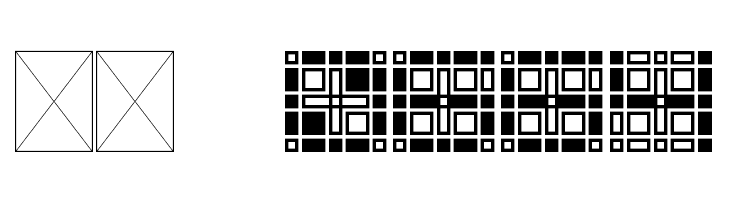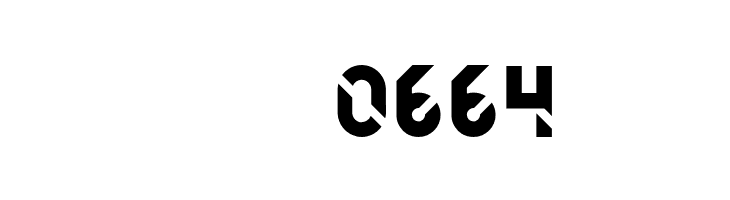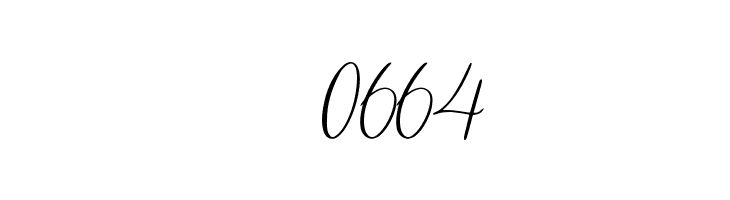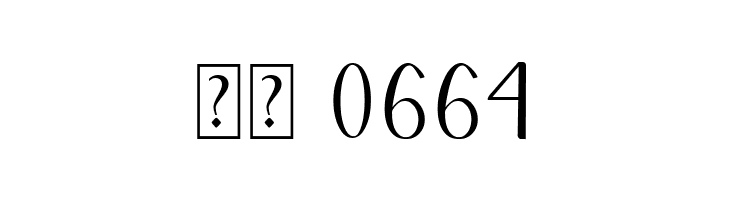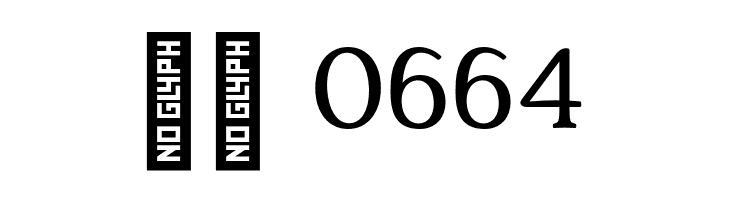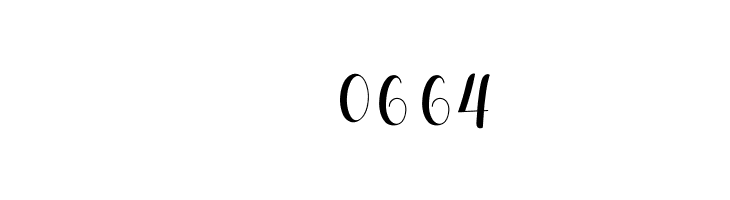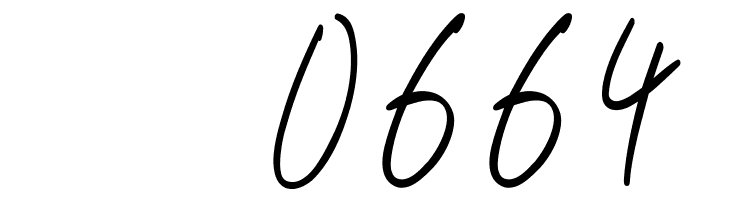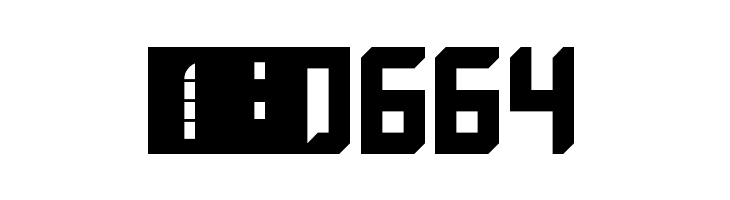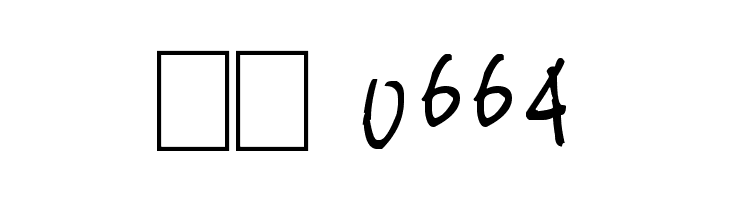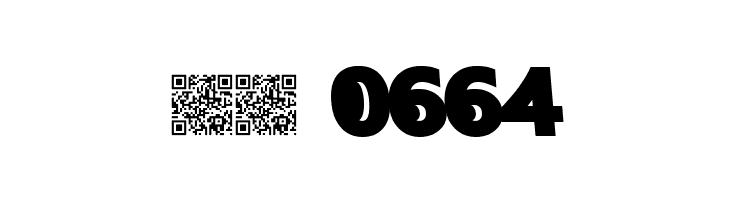
• Qarllottey
A graceful and elegant script font with flowing, connected strokes.
• QatarCapitalDemo
A sophisticated and flowing script font with a handwritten appearance.
• QatarCapitalDemo
A dynamic, fluid script font with an elegant handwritten style.
• QatieliaScript
A graceful script font with flowing, interconnected characters and elegant flourishes.
• QatieliaScript
An elegant, flowing script font with high contrast and sophisticated style.
• Qeysha Script
A graceful, calligraphic script font with elegant flourishes.
• Qintan Script Free Regular
A dynamic script font with fluid, interconnected strokes and elegant style.
• QJae
A casual, playful handwritten font with irregular strokes and a friendly appearance.
• Qlinsey
A playful and whimsical font blending script and sans-serif styles.
• Qonquer
A bold, modern font with block-like characters for impactful designs.
• Quadoo Regular
A geometric, angular font with a futuristic and abstract design.
• Quaint
A dynamic script font with flowing, cursive letterforms and artistic flair.
• Qualtron Regular
A decorative font with intricate geometric patterns and a futuristic aesthetic.
• Quantify
A bold, geometric font with sharp angles and clean lines, perfect for modern designs.
• Quantik Bold-Italic
A bold, italicized font with a modern yet classic style.
• Quantik Regular-Italic
A classic serif font with a modern, elegant italic style.
• Quantik-Personal-Use-Only Regular
A classic serif font with modern elements, offering clarity and elegance.
• Quantrum Regular
A bold, geometric font with a futuristic and edgy design.
• Quantum art design
• Quantum-artdesign
• QuantumFuture
A bold, modern font with thick strokes and a slightly condensed style.
• QuantumRegular